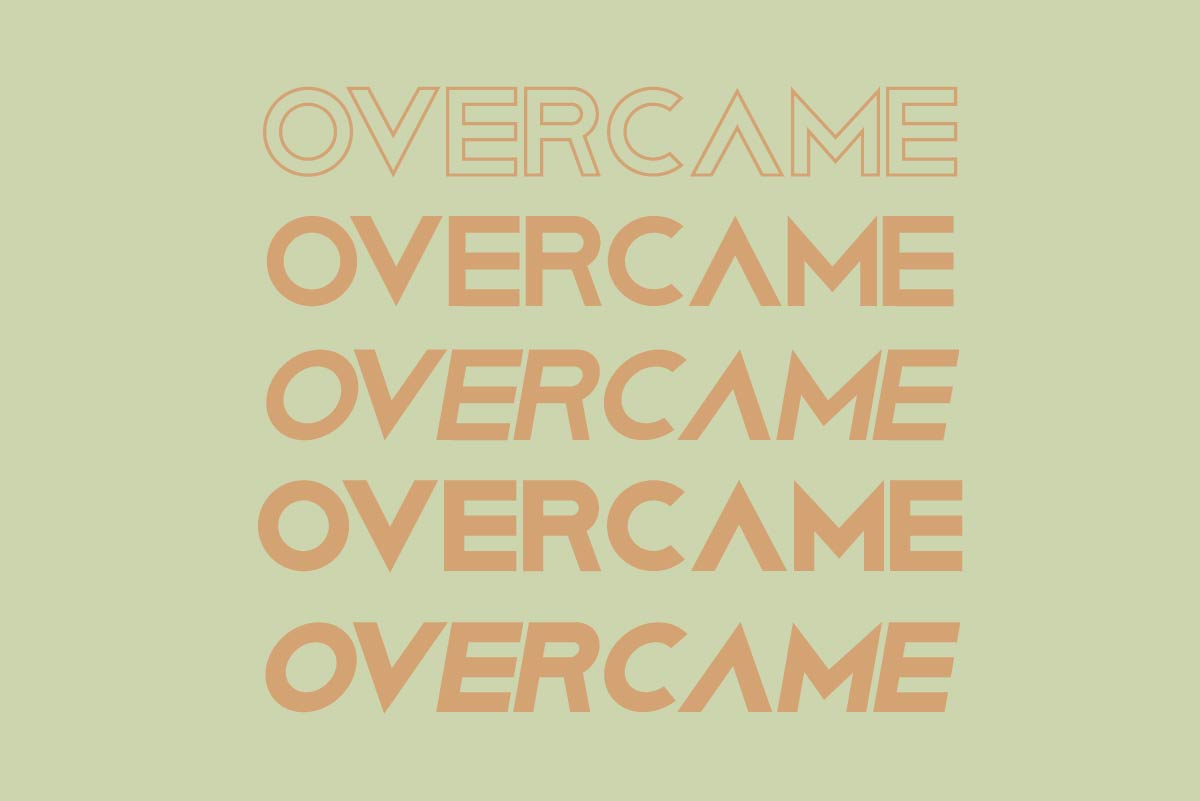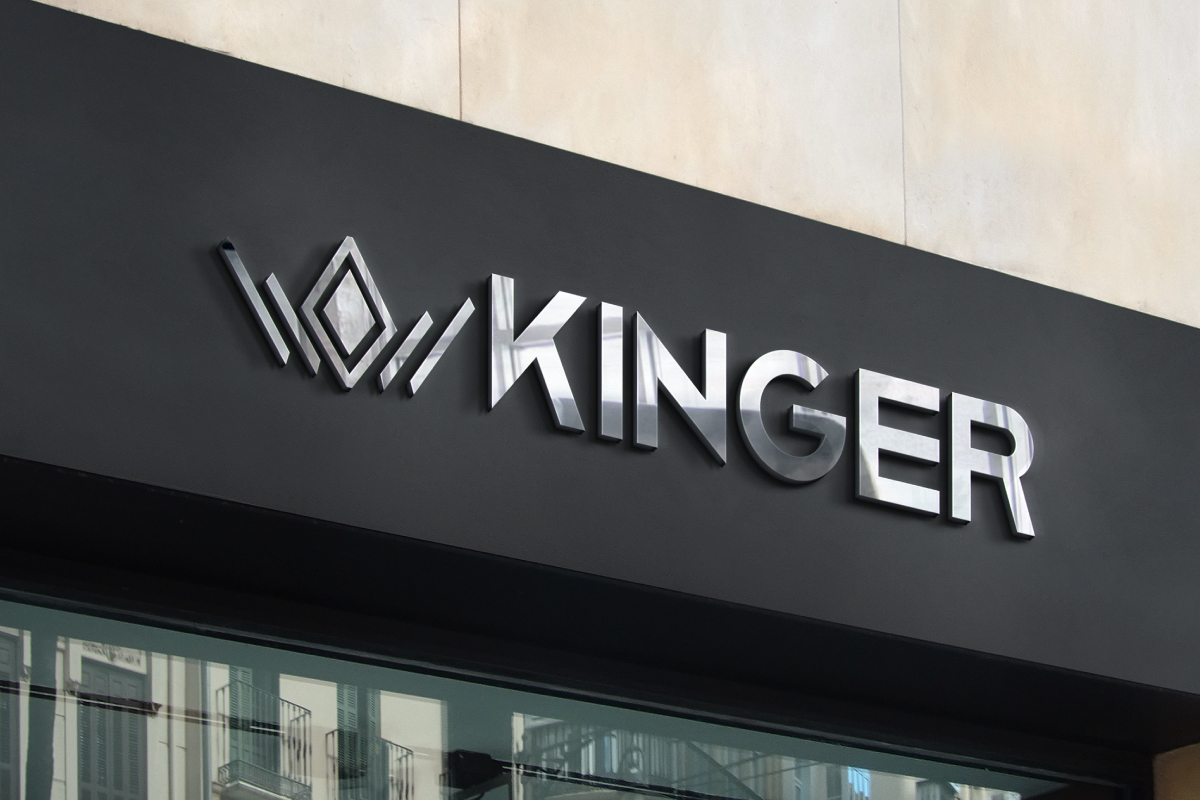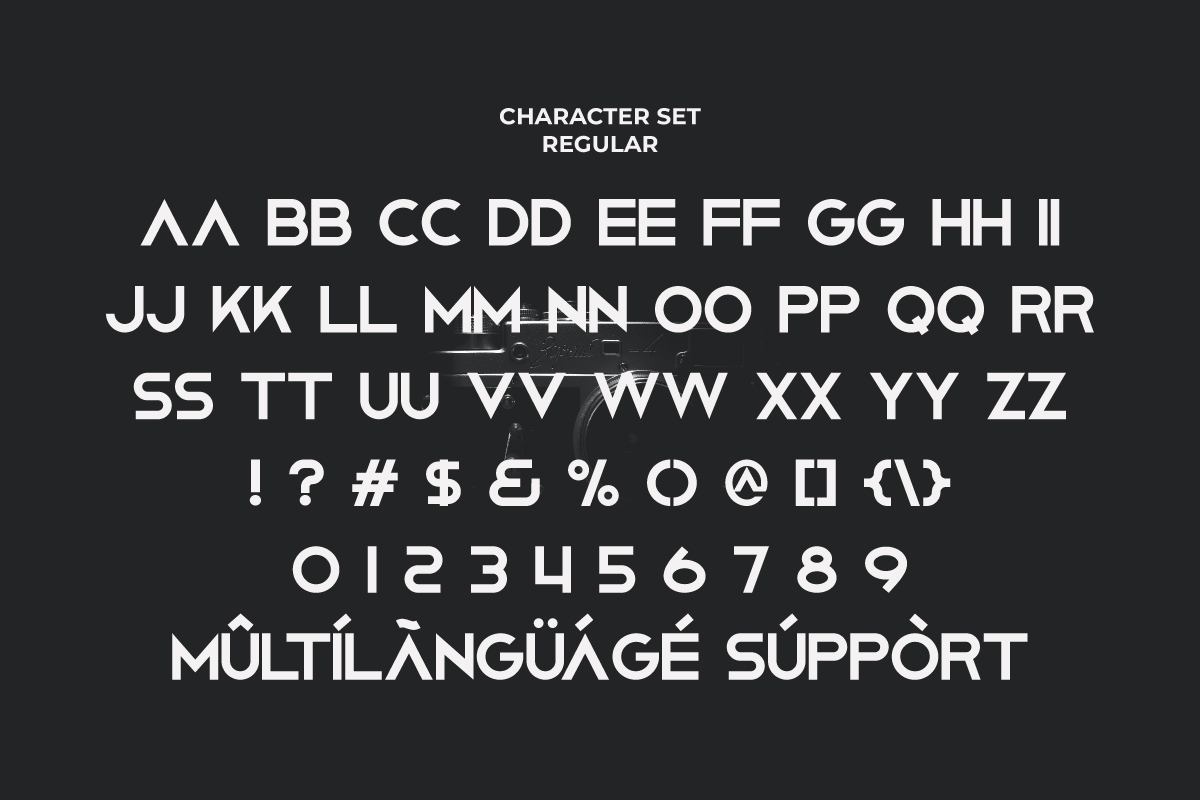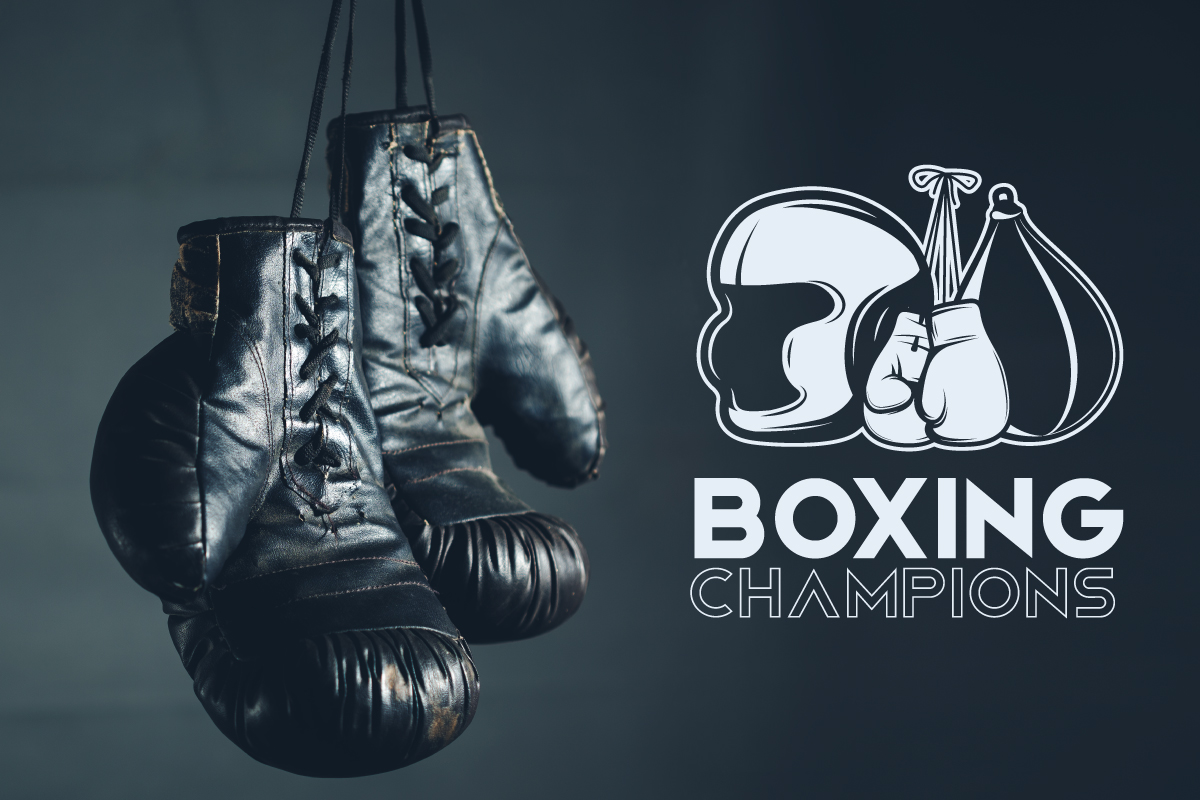
Overcame Font
Overcame Font is a modern sans serif font family with five styles. The style of this font are modern, techno, strong, masculine, sporty etc. Great for logo, brandings, headlines, signage etc. Overcame Font come with strong unique characters that will make your designs standout. The font will be awesome for many industries including : sports, techno, festival, games, movies etc